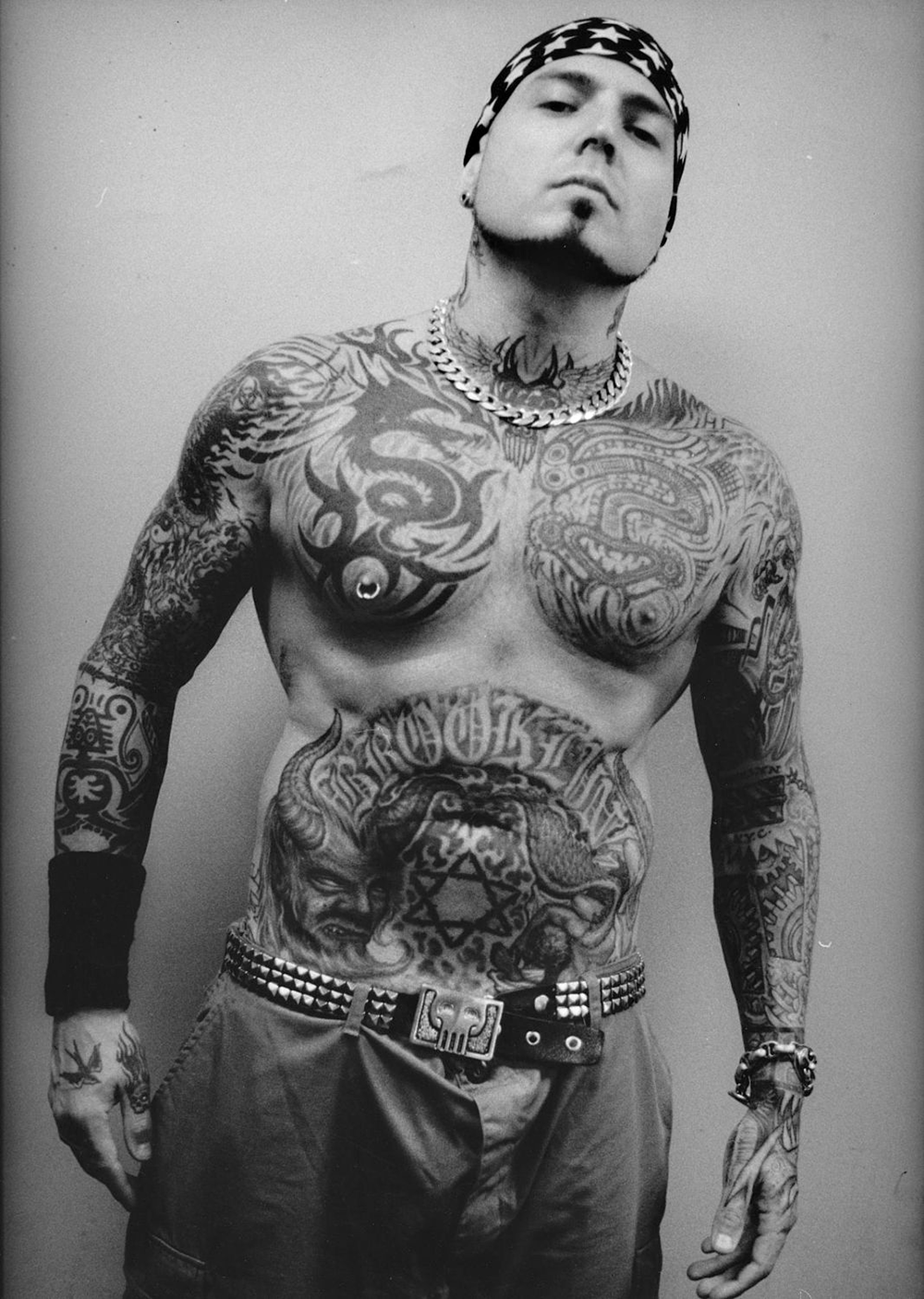
Typography – Part 5: Fraktur - The German Font
Today I want to talk abut ‘the German Font' - The Fraktur. I think it's a topic that deserves its own post, not only because I'm german of course, no. It's a very beautiful font and is still very popular and often used nowadays. Besides that it just looks amazing. It's art. It's one of a very few fonts to tell a story and to be very emotional.
-/ A historical flashback
The term 'fraktur' (latin: fracture) says, that the rounded lines of the letters which date back to the classical antiquity, were ‘broken'. This process already started at about 1200 after Christ, in times where the romanesque round archs were broken in architecture. The first font-group being developed in the scriptoriums in the north of france was the gothic form. This narrow and high font was replicated by Johannes Gutenberg when he made the first print ever to happen in the occident. At about 1470 the second ‘broken‘ font was developed in Germany, the 'Schwabacher‘, named after the german city Schwabach, near Nuremberg. The translation of the bible by Martin Luther started the creation of a uniform written language. And the Schwabacher made it look beautiful.
The Schwabacher
handwriting and print font of the 15th century; made in the south of germany
Already back in 1517 the Fraktur steps into the light of history. One of its earliest users was Albrecht Dürer. The font becomes famous in the german-speaking areas soon after. The font is soon used in eastern countries as well as in Scandinavia. Until the 20th century the Fraktur was used for nearly all german texts, that's the reason why it is called "german font".
The term ‘german font‘ probably came from Italy, anyhow the term ‘lettera tedesca‘ appeared back in the end of the 19th century in upper Italy. And the fonts called ‘lettera tedesca‘ were the Schwabacher and the Fraktur because they have become the standard font for german texts.
In the subsequent period font artists permanently created better and more readable Fraktur-fonts. And they did not miss out on beauty! The Fraktur becomes a piece of art combined with usefulness. Under the direction of some great german font artists, calligraphy experiences a tremendous upturn and reaches its climax between 1920 and 1940. During this time numerous fonts of timeless elegance and beauty were created in Germany.
Fraktur
created in the 16th century;
-/ The shape
A good readability of a Fraktur-font is based on four crucial features:
1) more letters have ascenders and descenders to make them pop out
2) letters distinguish themselves very prominent which makes it easier for the eye to read the text
3) most Fraktur-fonts are kind of narrow which make it easier to catch more letters at once; beneficial for german texts as syllables usually have more letters in german language compared to other languages;
4) the final 's' in a word indicates the end of a word; in the middle of a word the so called ‘fugue‘ catches the attention of the eye;
Very welcome to ‘non-germans‘ because it's easier to read:
First word says ‘guardhouse', second one ‘tube of wax‘, although the look pretty much identical; it's just a matter of pronounciation.
-/ Forbiddance and aftermaths
Let's take a quick look at the history again, back to the times of the NSDAP, the Nazi-era. Nowadays the Fraktur is no longer as popular as it was back in the beginning of the 19th century. The main trigger for this cultural decay was a directive from the leader of the NSDAP, Martin Bormann, on 3rd of January 1941. On behalf of Adolf Hitler. The "gothic font" was labeled as the ‘schwabacher jewish letters‘. From that day only linear antiqua fonts – ‘normal‘ fonts – were allowed to use. It was a lie on purpose which made the Fraktur disappear completely. Unfortunately these fonts were not included in the reparations. In fact there is no longer a forbiddance today but no minister of education wants to see it part of the education in school although it is such a valuable cultural asset.
The works of art have been forgotten. Sadly.
-/ BUT – what do we have here!
The Fraktur is still alive and made its way despite its heritage. It's a beloved font among artists, musicians and even gangs. Here are some proofs that'll show you that this font rocks, literally. The beauty of this art accompanies us every day. We just need to watch closely. And the message this font transports is not replaceable by any other font. It's a statement. Period.
Tattoo art // Members of the Mara 18
Tattoo art // Member of the Mara Salvachutra (MS), Mara 13
Tattoo art // The Game and Travis Barker
Tattoo art // Eminem
Logo // Hatebreed
Tattoo art // Evan Seinfeld, Biohazard
There are so many different variations of Fraktur-fonts available today, it's crazy. You can get many of them for free and start being creative.
Isn't it called "Old English" in Word?
Hi @deleted! There are numerous variations of Fraktur-fonts, different names, different styles. 'Old English' is very famous as well. There are others like Wilhelm Klingspor, Goudy Text and Fette Fraktur. 'Fraktur' is a collective term for these type of fonts / group of fonts and a font as well (Fette Fraktur).